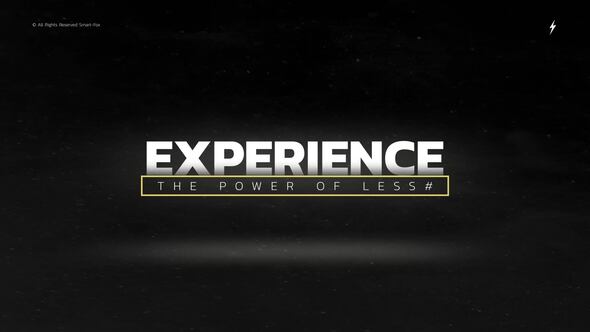
Videohive Sliding Animated Typeface For After Effects
Sliding Animated Typeface for After Effects. This project is a fully customizable title template. It can be used in several video projects like departure boards, travel videos, vacation, invitations, greeting cards, Vlogs, romantic openers, intros, and many more.
- You can customize Font properties, Tracking, Transform and full color controls.
- Main color or each character color controllers.
- This project works perfectly working with Monospaced fonts. Other fonts have different width sizes and can be different look.